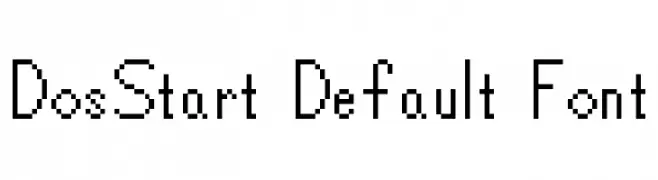
A pixelated, monospaced font with a retro digital aesthetic.
A monospaced, pixelated font with a retro, digital aesthetic.
A pixelated, monospaced font with a retro digital aesthetic.
A pixelated, monospaced font with a retro digital style.